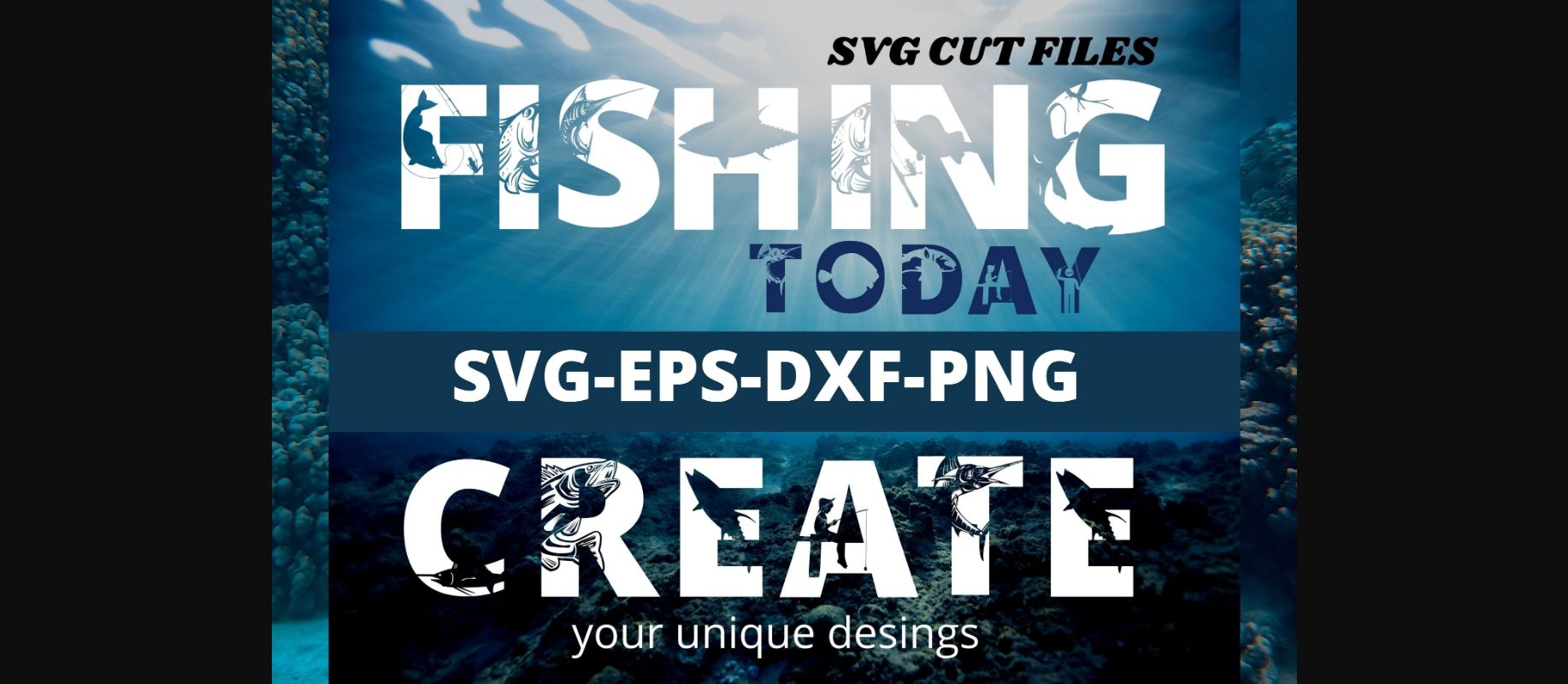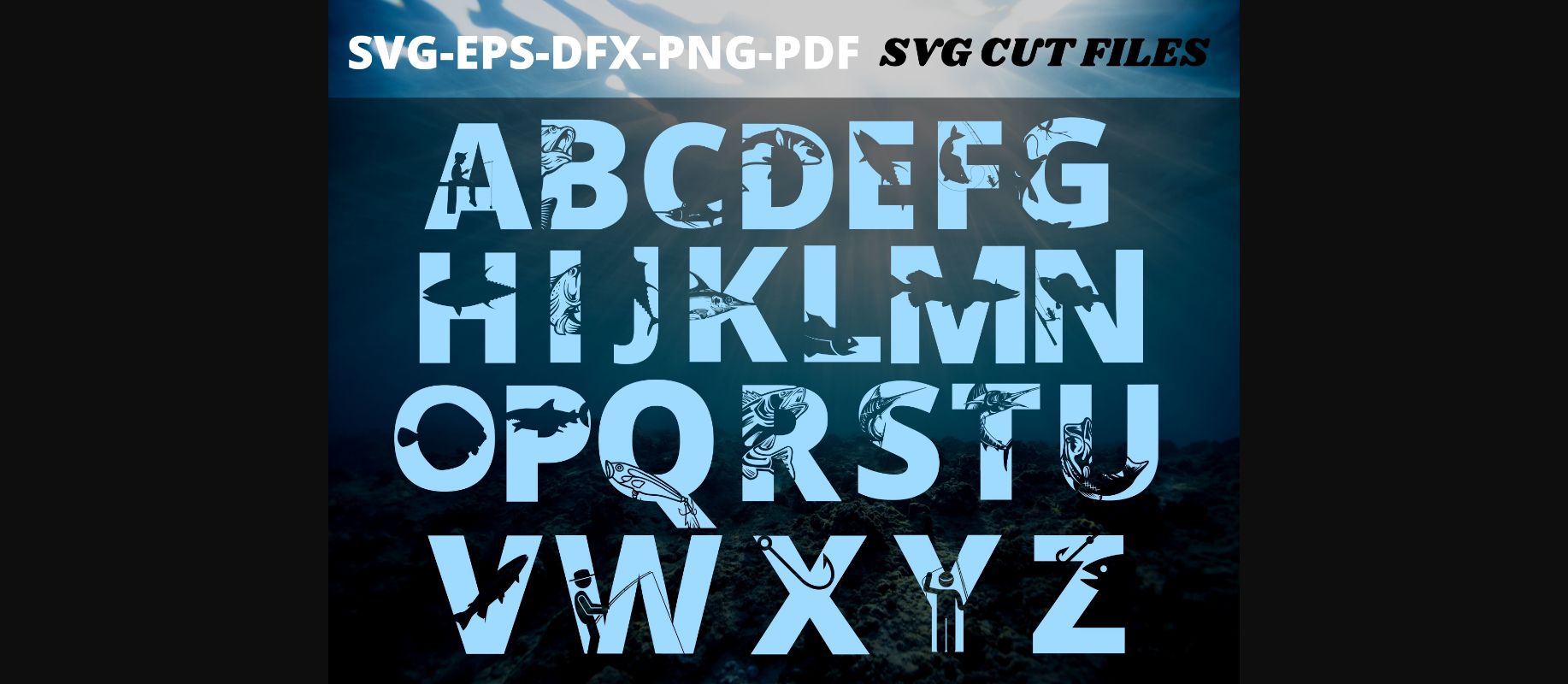
About Fishing Today Font
Fishing Today is a cool, useful and unique decorative font. You can use it for various projects, such as blog posts, logos, branding, ads, invitations, greeting cards, planners, photo albums, decorations, and much more. Add it to any of your designs, and enjoy the results!